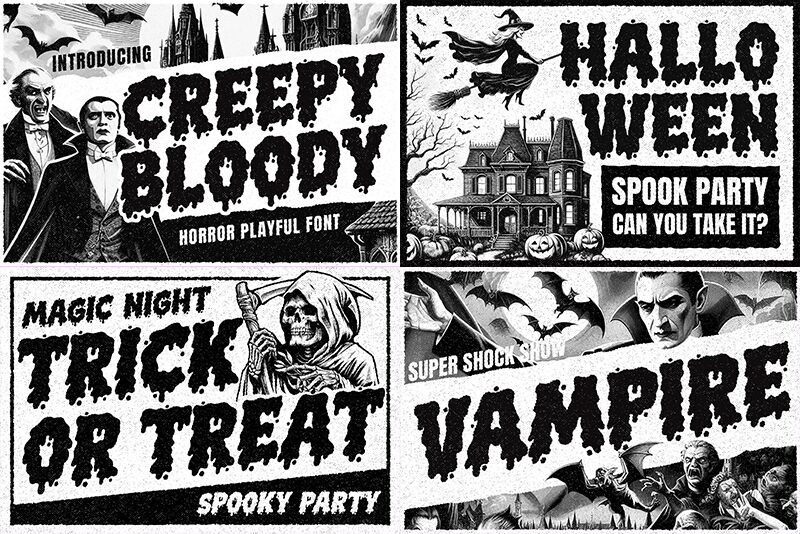
Creepy Bloody font by Blankids is a free horror font with a frightful and eerie aesthetic. The design is dramatic, with theatrical scare-inducing shapes. This accentuates the font’s powerful presence and ensures to deliver a true Halloween ambiance. Although this font is modern, its inspiration from vintage horror gives that classic effect. It visualizes fear and horror factors with its lurking uppercase letters and haunted lowercase letters.
Use this terrifying typeface for creating horror movie titles and posters. Make a deadly book cover, packaging design for games and movies, or event invitation/card. It fits brilliantly on scary magazine covers and video game interfaces.